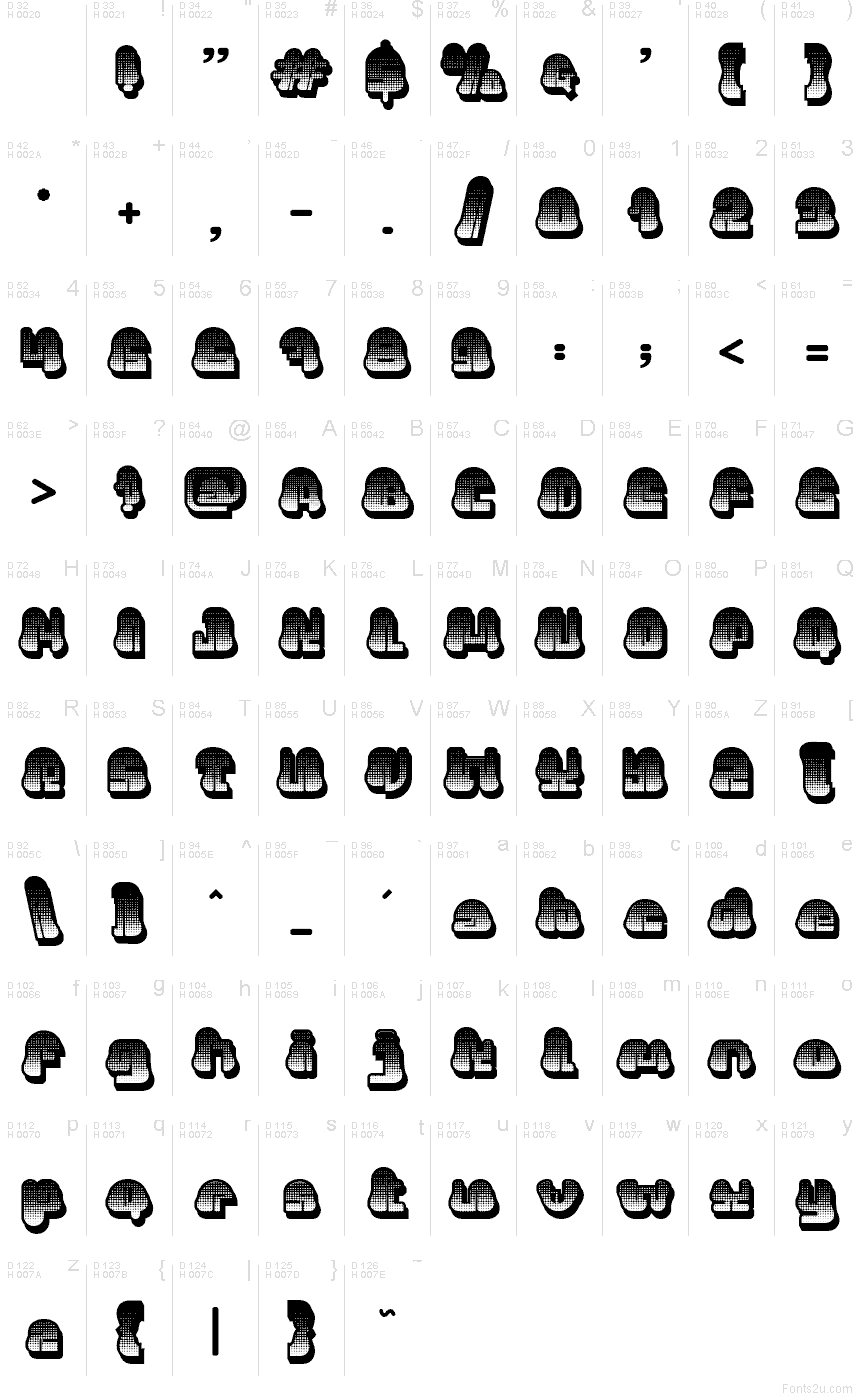
Vibe Tribe Three by Putracetol Studio is a free groovy 3D display font with inflated letters and rounded drop shadows. A halftone fade crosses their lower halves and lends the forms a screen-printed texture. The silhouettes are squat and deliberately irregular.
Packaging is its strongest medium, especially for candy and soft drinks with a bubbly 1970s theme. On posters, event graphics, and music merchandise, the dotted fade can echo comic-book shading or continue into a larger halftone illustration.